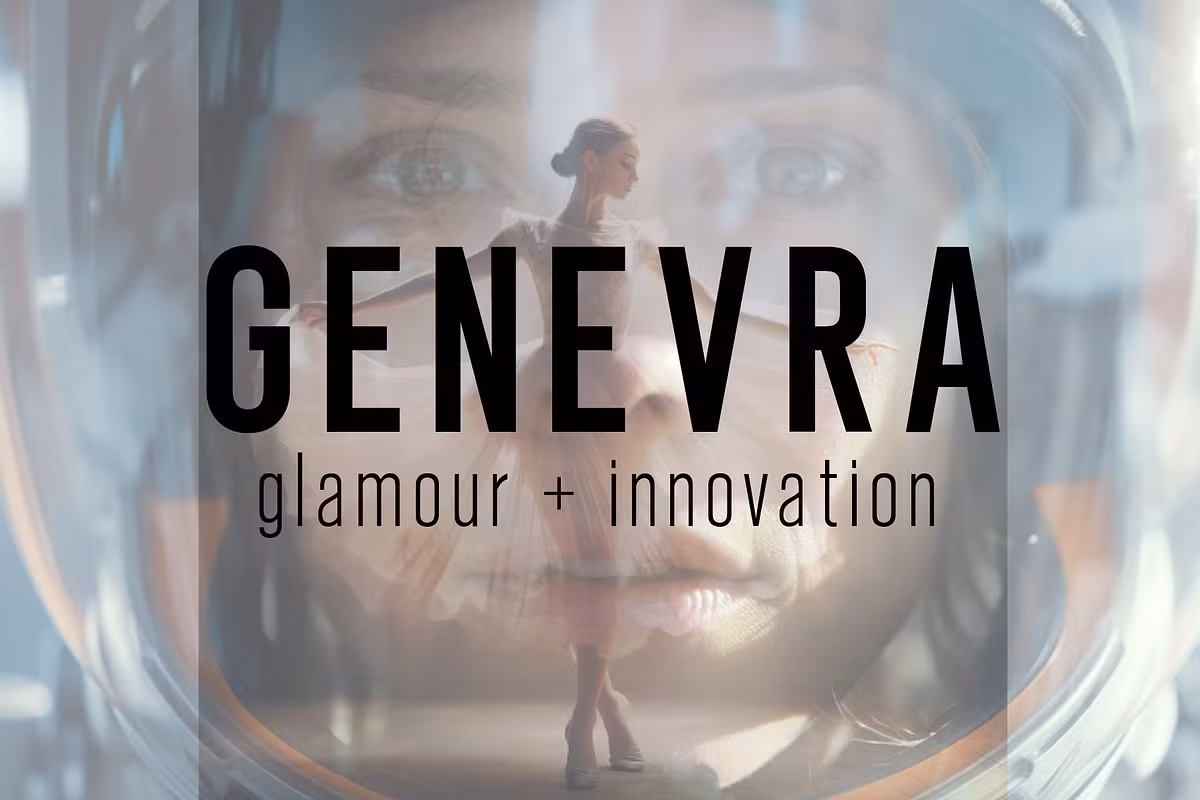
Please note that you must purchase this font for commercial use. You can download Genevra Condensed Font for free, strictly for personal testing purposes only. Genevra Condensed is a sleek, modern sans-serif font that offers a clean, minimalist design with a condensed style. Perfect for projects where space is limited or where a bold yet refined look is needed, Genevra Condensed Font Free Download is ideal for branding, logos, posters, websites, and editorial designs.
The condensed design provides a unique balance between readability and stylish impact, making it perfect for both large and small text applications. It includes uppercase and lowercase letters, numerals, punctuation, and multilingual support, ensuring it works for a variety of design projects.
Whether you're creating a contemporary brand identity, designing sleek posters, or crafting digital content, Genevra Condensed brings modern elegance and versatility to your typography.